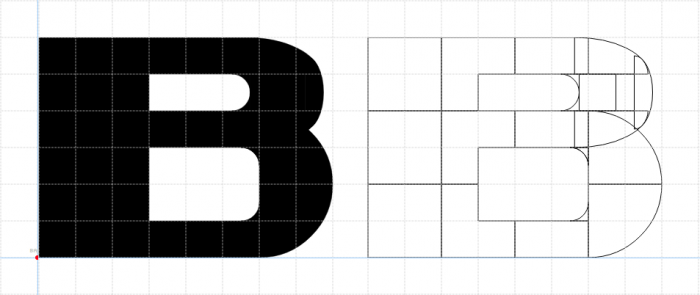
Based on Metal Gear Solid's interface font, but non-pixelated.
@V. Sarela (Yautja) - Very nice. As much as I like pixel fonts, I always enjoy seeing these types of transformations. :^)
Great re-creation. Congrats. My only little "but" is about the upper arc of the B. I think you can use a similar way than the upper arc of the S on it. I add a sample.
@elmoyenique good suggestion (well recreated!), although neither shape is ideal – hard to find a fitting curve with current bricks.
Finally made some better curves.